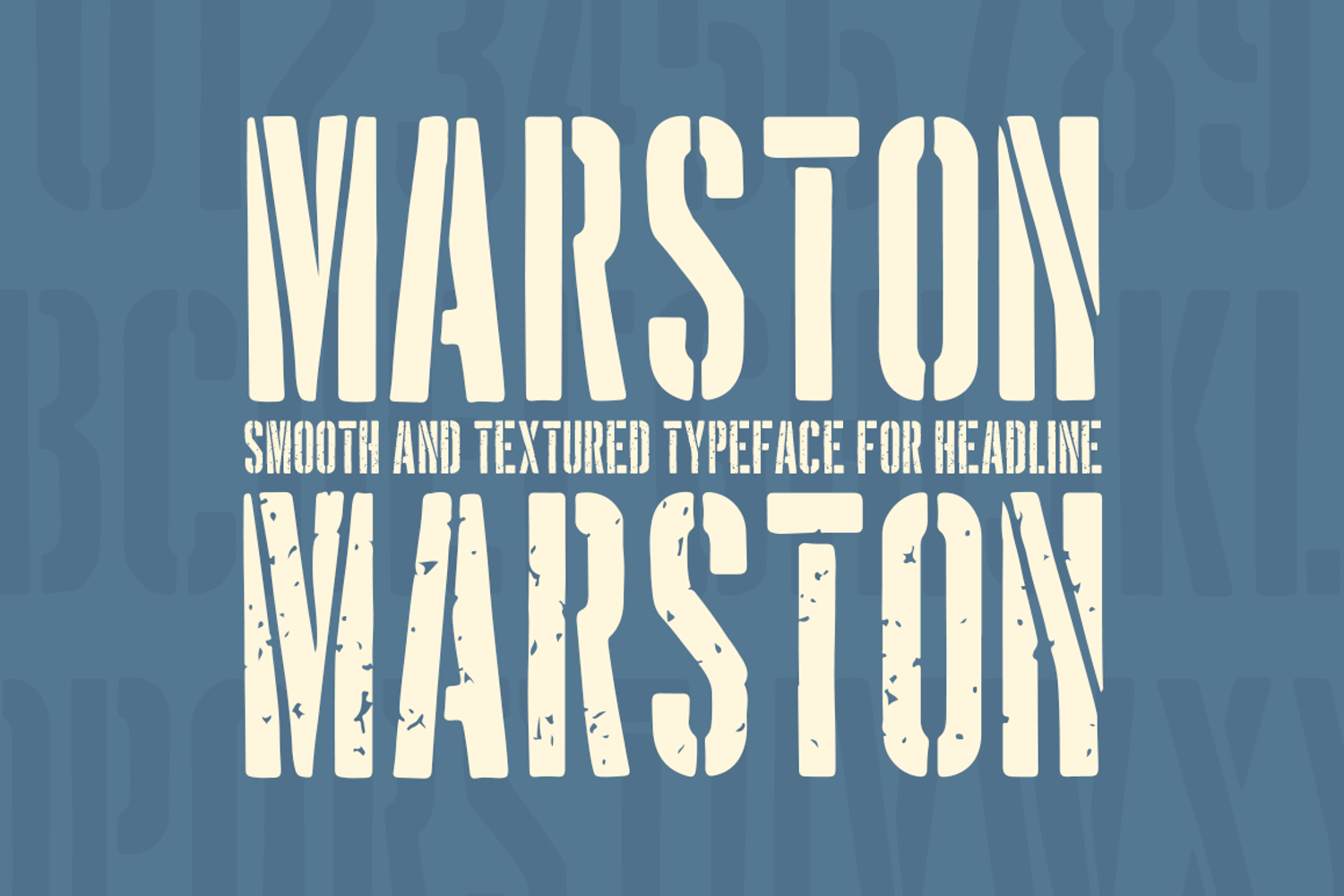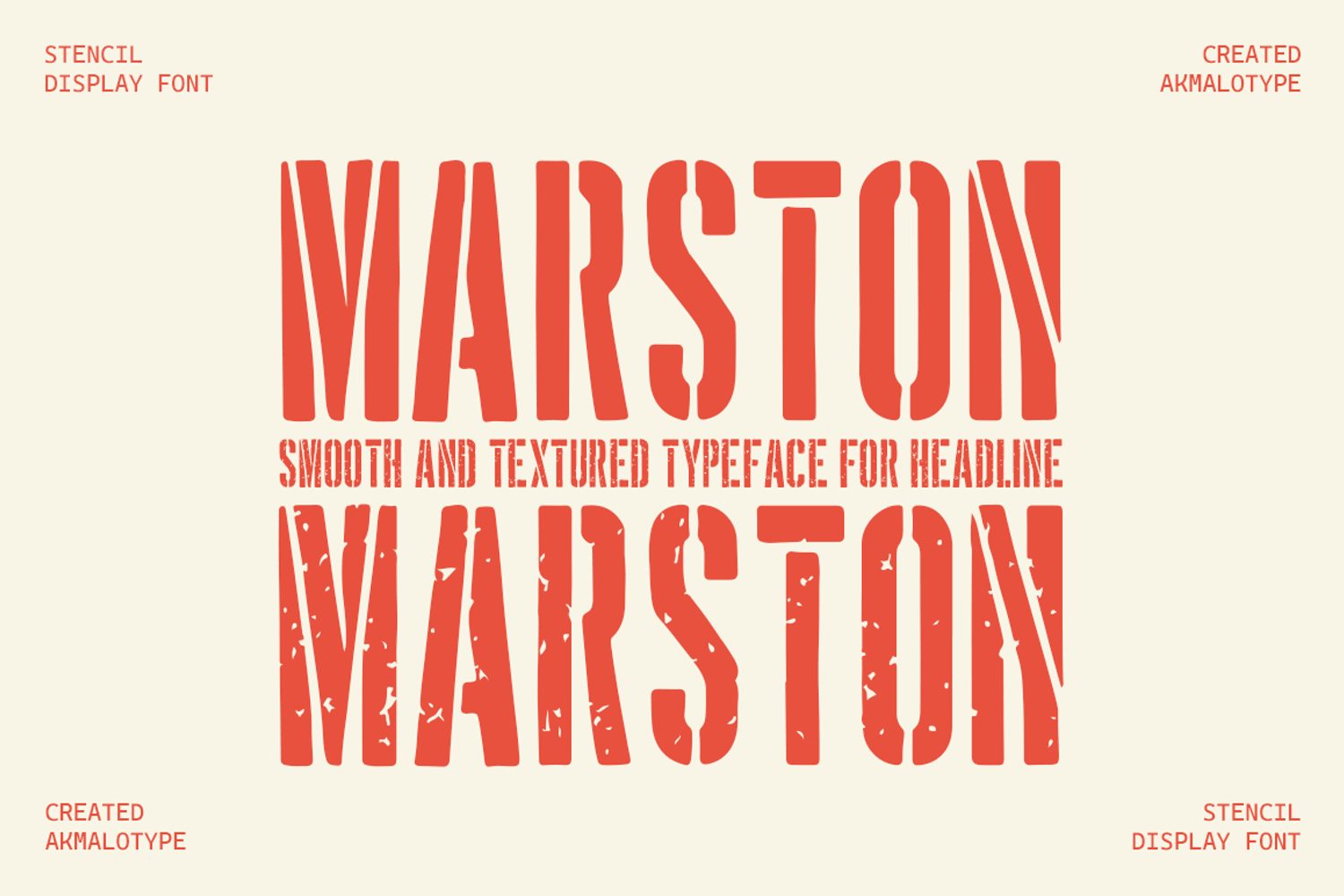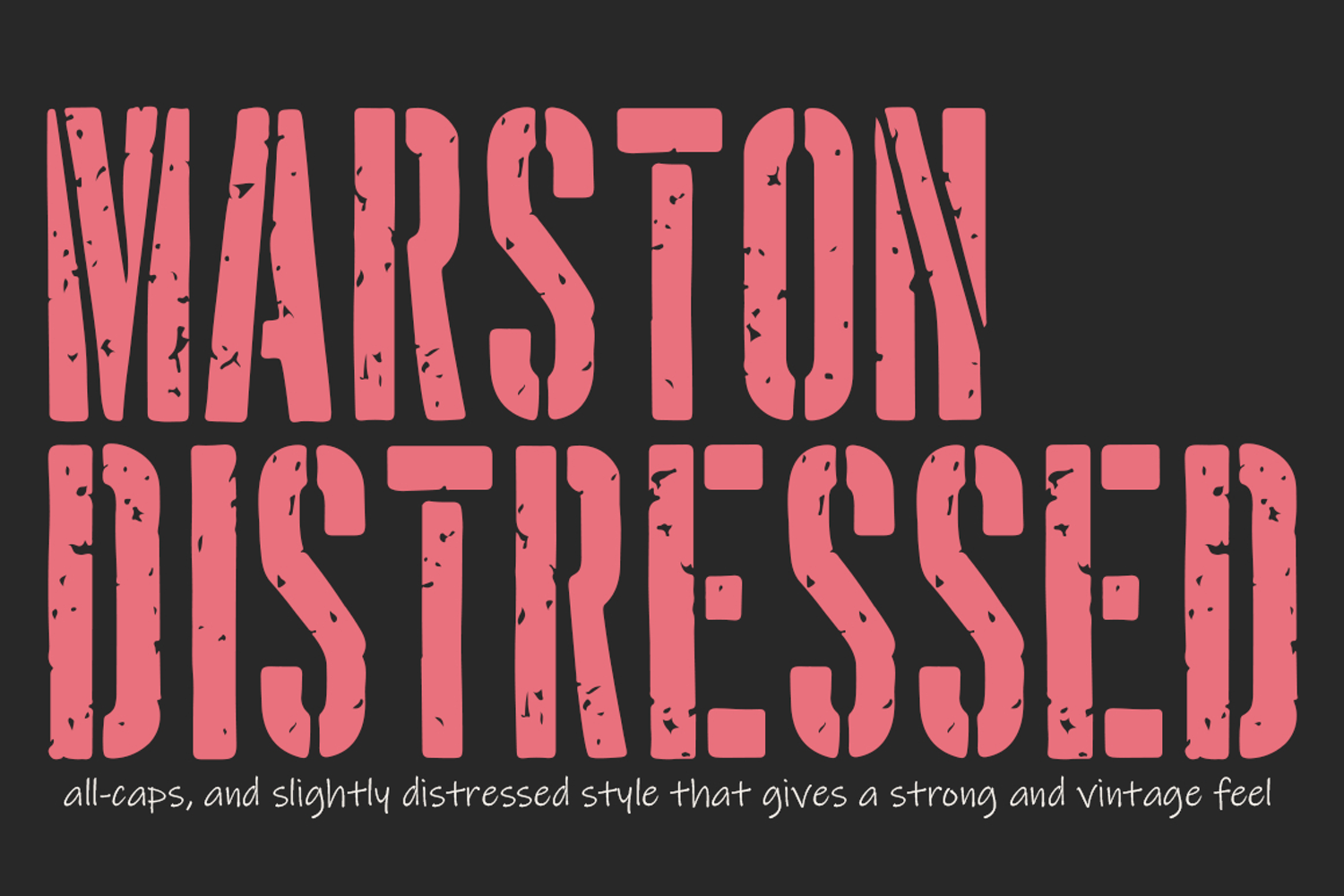
Marston Font - Vintage
Marston
Marston Smooth
This font has a bold, all-caps, and slightly distressed style that gives a strong and vintage feel.
The letterforms are tall and solid, with a rough, worn texture that makes it look like a retro print or stencil design. It’s perfect for designs that need to feel strong, masculine, and eye-catching, such as posters, branding, or t-shirt graphics.